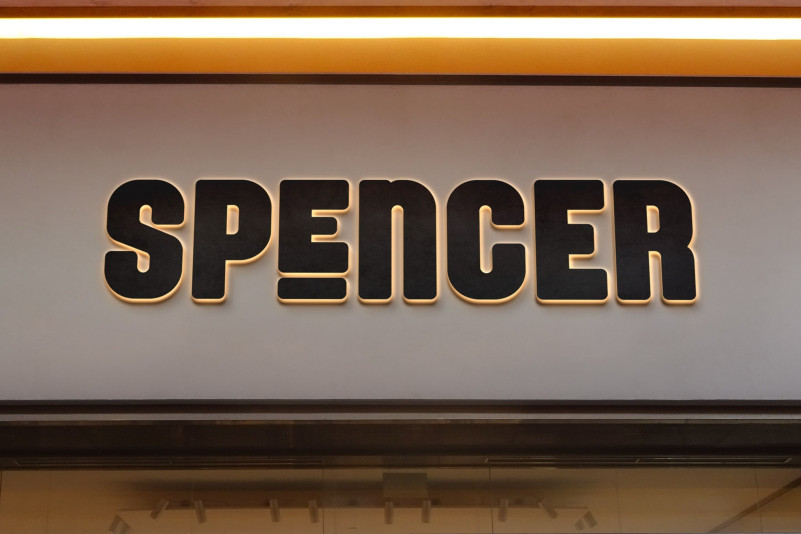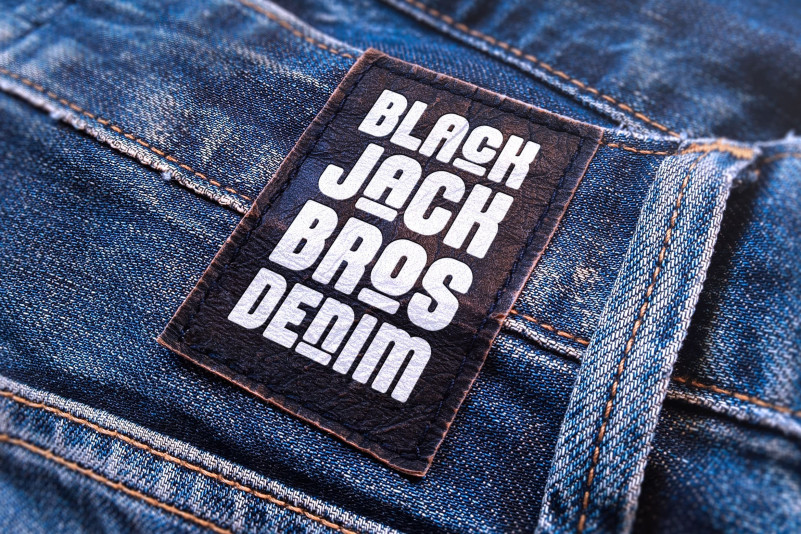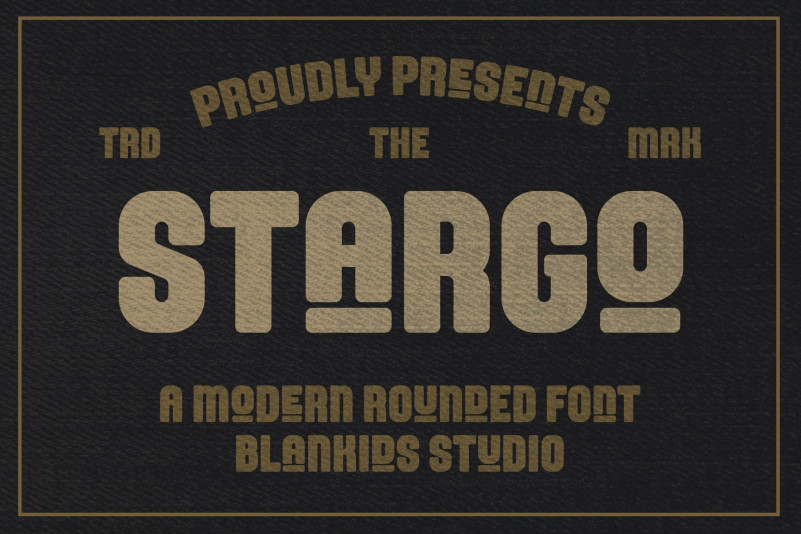
Stargo Font
Stargo Display Font a Modern Rounded Font, Inspiring from modern typography. This font is perfect for a design that makes it more attractive and playful. made with a very good level of aesthetics making this font suitable for book cover, poster, packging, merchandise, logotype and much more.